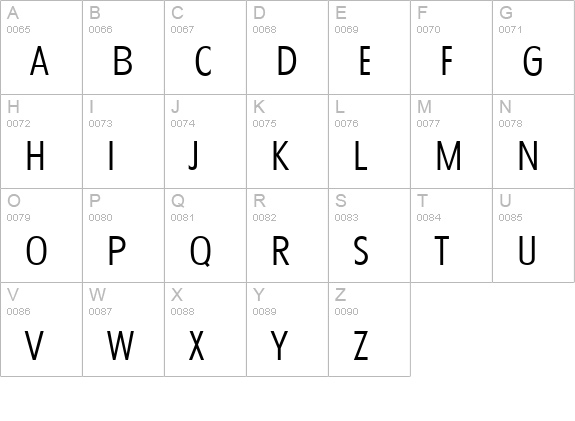
FloridaSerial-Light-Regular is a refined, elegant variant in the FloridaSerial typeface family \xE2\x80\x94 well suited to elegant body text, refined sub-headings, and luxury branding.
FloridaSerial-Light-Regular font is a sleek and modern typeface that exudes elegance and sophistication. With its clean lines and subtle curves, this font is perfect for adding a touch of class to any design project. The light weight of the font gives it a delicate and airy feel, making it ideal for use in headings, titles, and other display text. What's even better is that FloridaSerial-Light-Regular font is available for free download at FontsMarket.com. This means you can easily access this stylish font and incorporate it into your designs without any cost. Whether you're working on a website, branding materials, posters, or any other project, FloridaSerial-Light-Regular font is sure to elevate the look and feel of your work. Download it today and start creating beautiful designs with this versatile typeface.